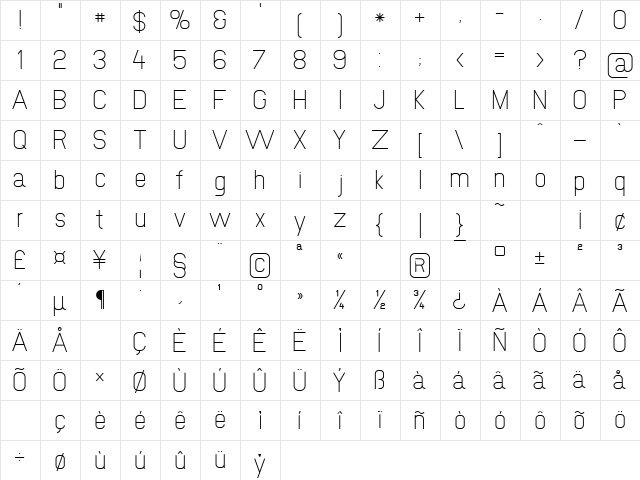
NewMedia Regular
Design Context for NewMedia Typeface
NewMedia is a composed and adaptable typeface that performs quietly and consistently across a wide range of design contexts.